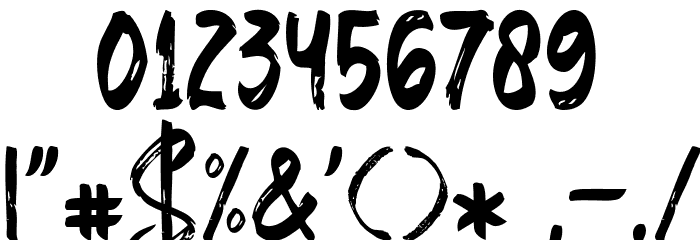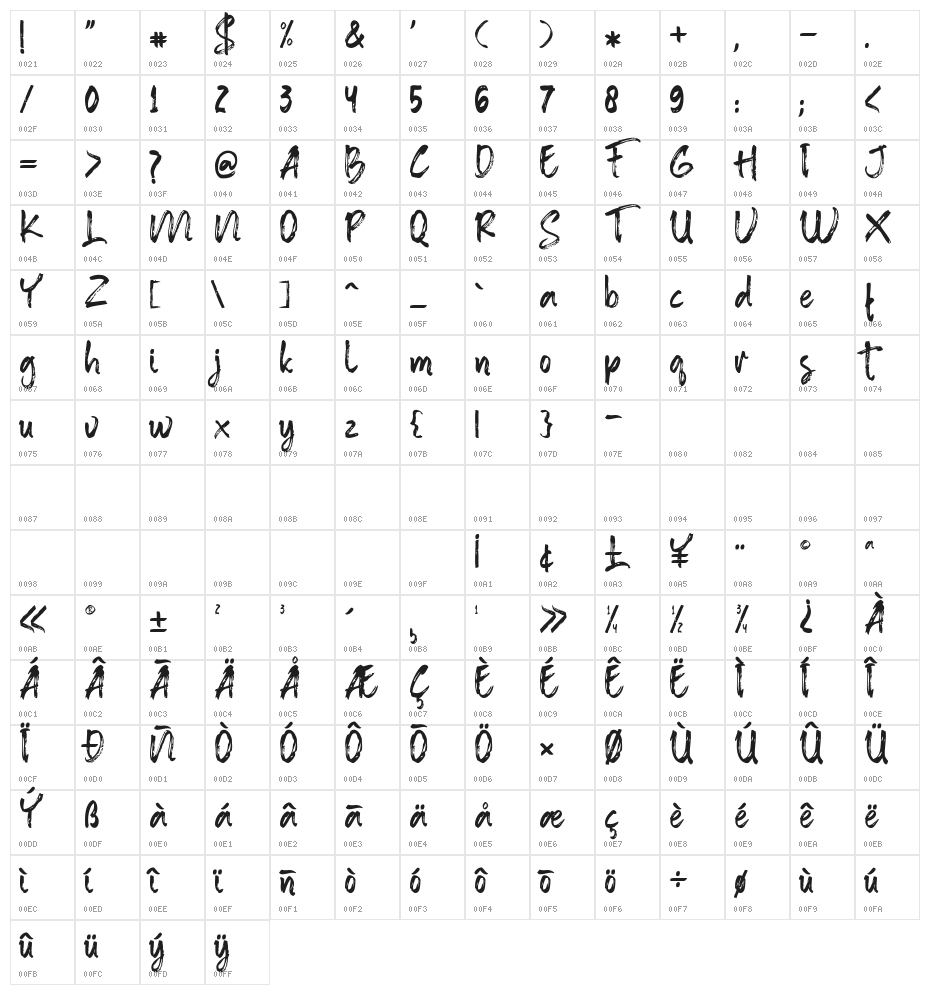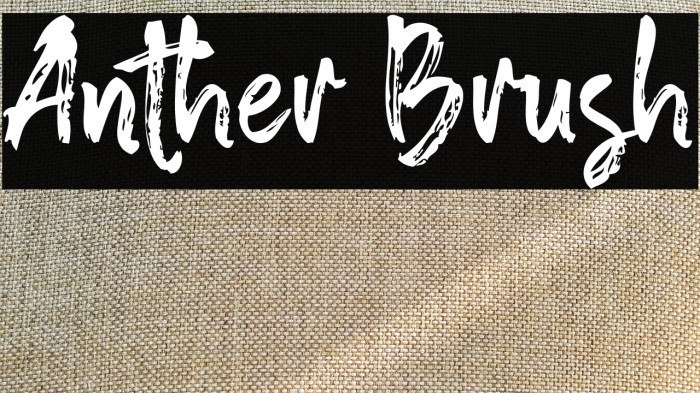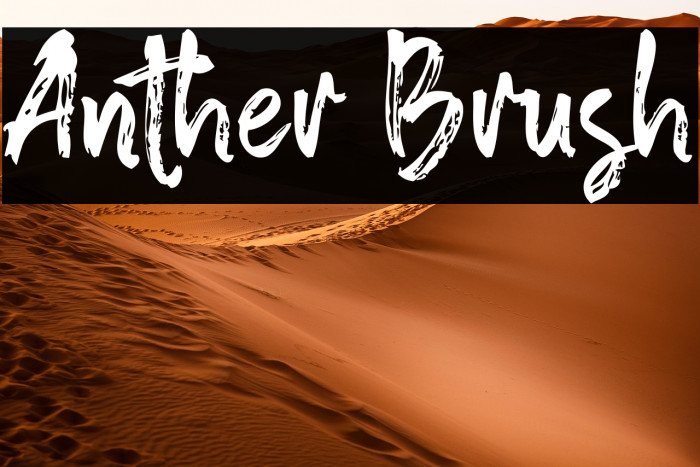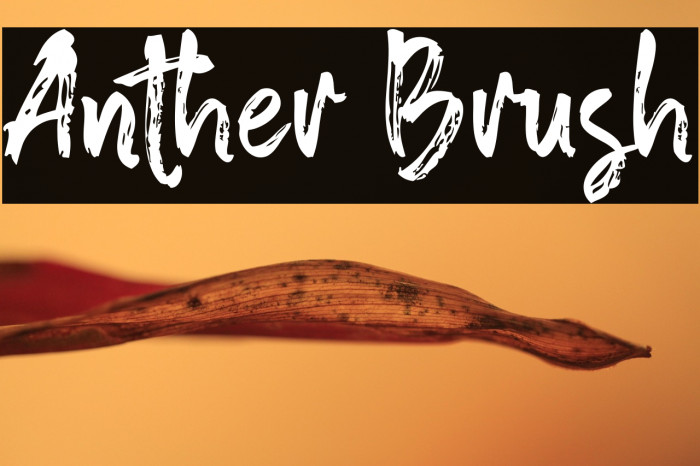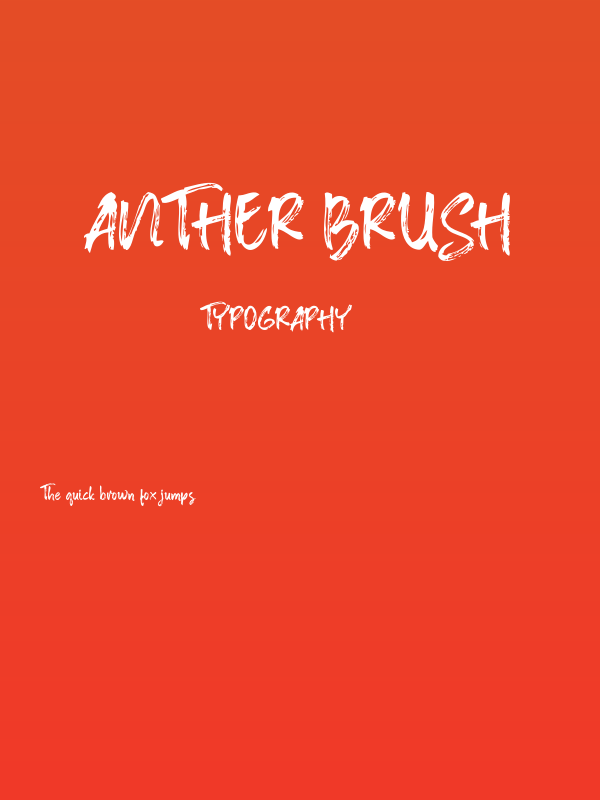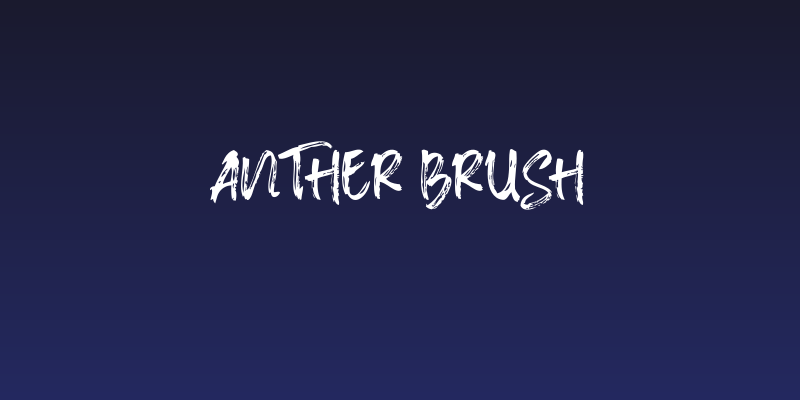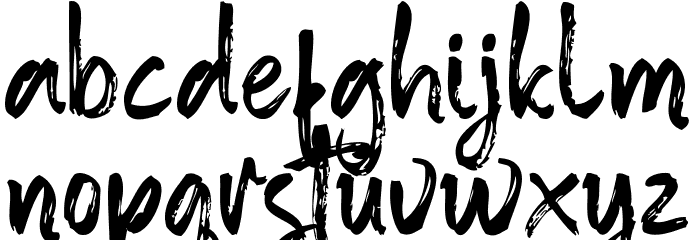
Anther Brush Font
Anther Brush Description
This font features a bold, expressive brush style that exudes energy and creativity. The strokes are dynamic and varied, giving each character a unique, handcrafted appearance. The uppercase letters are bold and impactful, while the lowercase letters maintain a consistent flow, enhancing readability. Numbers and special characters are equally bold, maintaining the font's overall energetic aesthetic. The texture of the brush strokes is evident, adding a tactile quality that makes the font stand out. This font is ideal for projects that require a personal, artistic touch.